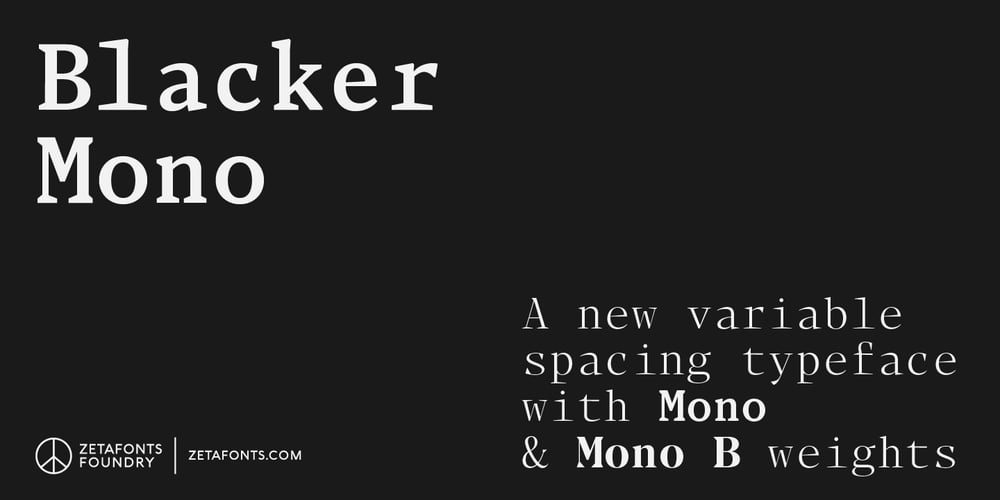
Blacker Mono Font Family was designed by Francesco Canovaro, Cosimo Lorenzo Pancini and published by Zetafonts. Blacker Mono contains 10 styles and family package options. Blacker mono was developed out of a brief by Isabella Ahmadzadeh, by Cosimo Lorenzo Pancini and Francesco Canovaro for the editorial project “A beautiful mistake” by OFFF Tlv in 2022. It is a monospaced version of our typeface Blacker, bringing its “evil serif” aesthetics in the realm of typewriter and coding typefaces. In designing these, usually the letterforms are deformed to better fill the space, but in Blacker Mono only the serifs are modified to balance letters, while letter skeletons are kept consistent with the ones of the original Blacker family. This gives the typeface an uneven, unexpected rhythm, underlined by the unusual choice of providing three optical sizes and some extreme display weights – both uncommon choices in monospaced fonts. The resulting typefamily is thought for use in editorial situations where readability must be married by a strong personality, and is complemented by all the wide array of Open Type features that are present in all Blacker variants, from positional numerals to small case letters and alternates.